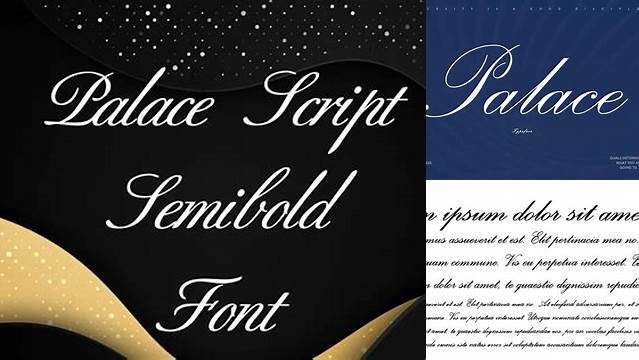
Are you looking to infuse your designs with a touch of classic elegance? Do you crave a font that whispers sophistication and adds a flourish to your projects? Well, my friends, look no further! Today, we're diving deep into the world of Palace Script Semibold, a font that's as regal as its name suggests—and the best part? It might just be available for you to download for free!
Why Palace Script Semibold? The Allure of a Classic
Palace Script Semibold is more than just a font; it's an experience. This typeface exudes an air of timeless charm, reminiscent of handwritten calligraphy from a bygone era. Its flowing lines, delicate curves, and pronounced serifs create a visual rhythm that's both captivating and refined. Imagine the graceful loops and swirls dancing across your screen, adding a touch of personality and flair to your designs. This font isn’t just about words; it’s about making a statement, conveying emotion, and leaving a lasting impression. It’s the kind of font that whispers elegance, speaks volumes about your attention to detail, and elevates any project it graces. Palace Script Semibold is that secret ingredient that can transform an ordinary design into something truly special. It’s the final brushstroke that adds depth, character, and a touch of magic to your creative endeavors. Whether you're crafting a wedding invitation, designing a logo for a high-end brand, or simply looking to add a touch of sophistication to your personal projects, Palace Script Semibold is a font that deserves a place in your font library.
This font's versatility is another key factor in its appeal. It's not just for formal occasions; Palace Script Semibold can also be used to add a touch of personality to more casual designs. Imagine using it for a blog header, a social media graphic, or even a t-shirt design. The possibilities are endless! The key is to experiment and see how this font can best complement your unique style and vision. The weight of the “semibold” designation strikes a perfect balance. It’s substantial enough to command attention but not so heavy that it overwhelms the design. This makes it incredibly versatile for a wide range of applications, from headlines and subheadings to body text and captions. It’s a font that adapts to your needs, making it a valuable asset for any designer or creative enthusiast. And let’s be honest, who doesn’t love a font that can do it all? Palace Script Semibold is that reliable friend in your font collection, always ready to lend a hand and elevate your designs to the next level. So, embrace the elegance, explore the possibilities, and let Palace Script Semibold transform your creative vision into reality.
Using Palace Script Semibold: Design Tips & Inspiration
So, you've potentially found your copy of Palace Script Semibold (or a fantastic alternative). Now, let's talk about how to use it effectively! This font, with its inherent elegance, shines in specific design scenarios.
- Wedding Invitations & Stationery: This is a no-brainer! Palace Script Semibold adds a touch of romance and sophistication to wedding invitations, save-the-dates, and other wedding-related materials. Imagine the delicate swirls of the font gracing the names of the happy couple, setting the tone for a celebration filled with love and joy. The flowing lines and elegant curves evoke a sense of timeless beauty, perfectly capturing the essence of a wedding day. But don't limit yourself to just the names! Palace Script Semibold can also be used for headings, subheadings, and even body text, creating a cohesive and visually stunning design. The key is to use it sparingly and balance it with a more neutral font to maintain readability. A classic serif or a clean sans-serif typeface can provide the perfect counterpoint, ensuring that the overall design is both elegant and easy to read. And don't forget the details! The texture of the paper, the color palette, and the overall layout all contribute to the final impression. Palace Script Semibold is a powerful tool, but it's just one piece of the puzzle. When used in conjunction with other design elements, it can transform a simple invitation into a cherished keepsake, a beautiful reminder of a special day. So, embrace the romance, experiment with different combinations, and let Palace Script Semibold help you create wedding stationery that is as unique and unforgettable as the couple it represents.
- Logos & Branding (for certain businesses): Palace Script Semibold can be a fantastic choice for brands that want to project a sense of luxury, tradition, or artistry. Think high-end boutiques, artisanal bakeries, or handcrafted jewelry businesses. Imagine the logo of a quaint, family-owned bakery, the name gracefully rendered in Palace Script Semibold, evoking images of warm ovens and delicious treats. Or the logo of a high-end fashion boutique, the elegant curves of the font hinting at the sophisticated styles within. Palace Script Semibold can instantly convey a sense of quality and craftsmanship, setting a brand apart from the competition. However, it's important to consider the target audience and the overall brand identity. This font is not suitable for every business. It might feel out of place for a tech startup or a sports brand, which typically favor more modern and minimalist typefaces. The key is to ensure that the font aligns with the brand's values and personality. If your brand aims to project a sense of tradition, elegance, and artistry, then Palace Script Semibold can be a powerful asset. But if your brand is more modern, edgy, or playful, you might want to explore other options. The right font can make or break a brand's visual identity, so it's crucial to choose wisely. Consider the message you want to convey, the emotions you want to evoke, and the overall aesthetic you want to create. Palace Script Semibold is a versatile tool, but it's just one piece of the brand identity puzzle. When used strategically, it can help your brand stand out, connect with your target audience, and leave a lasting impression.